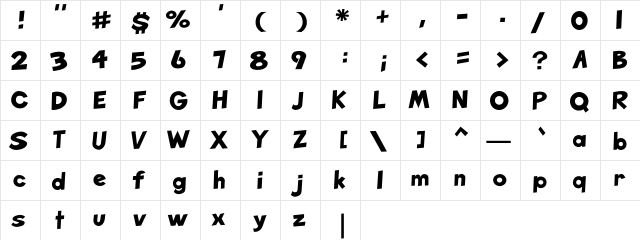
HeyType Regular
Design Context for HeyType Typeface
HeyType offers clean, dependable letterforms without strong stylistic allegiance, making it a practical choice for designers who need flexibility.